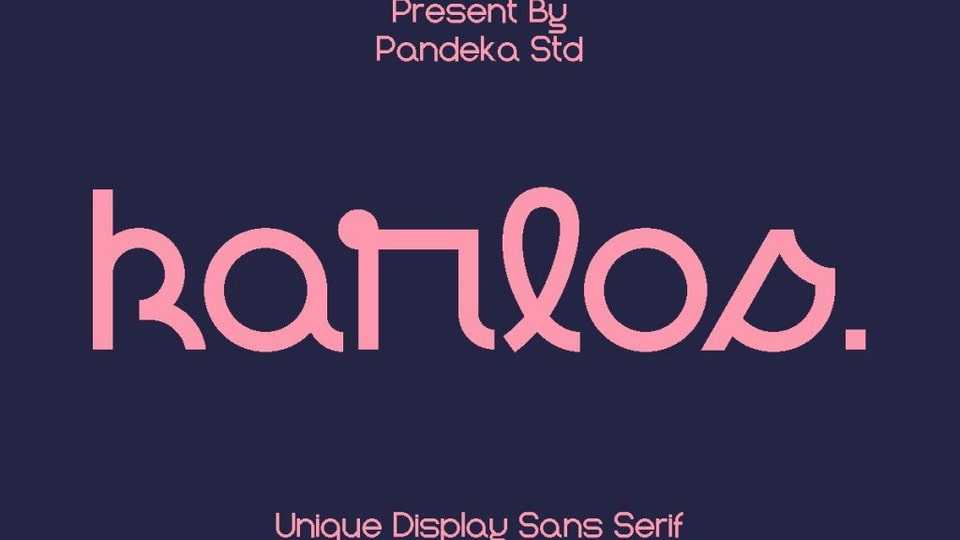
Download Karlos font, a blend of a geometric sans serif and a modern script hybrid font .The Karlos design showcases a distinctive array of characters inspired by script letterforms.